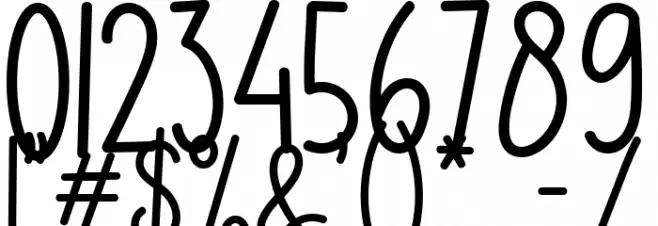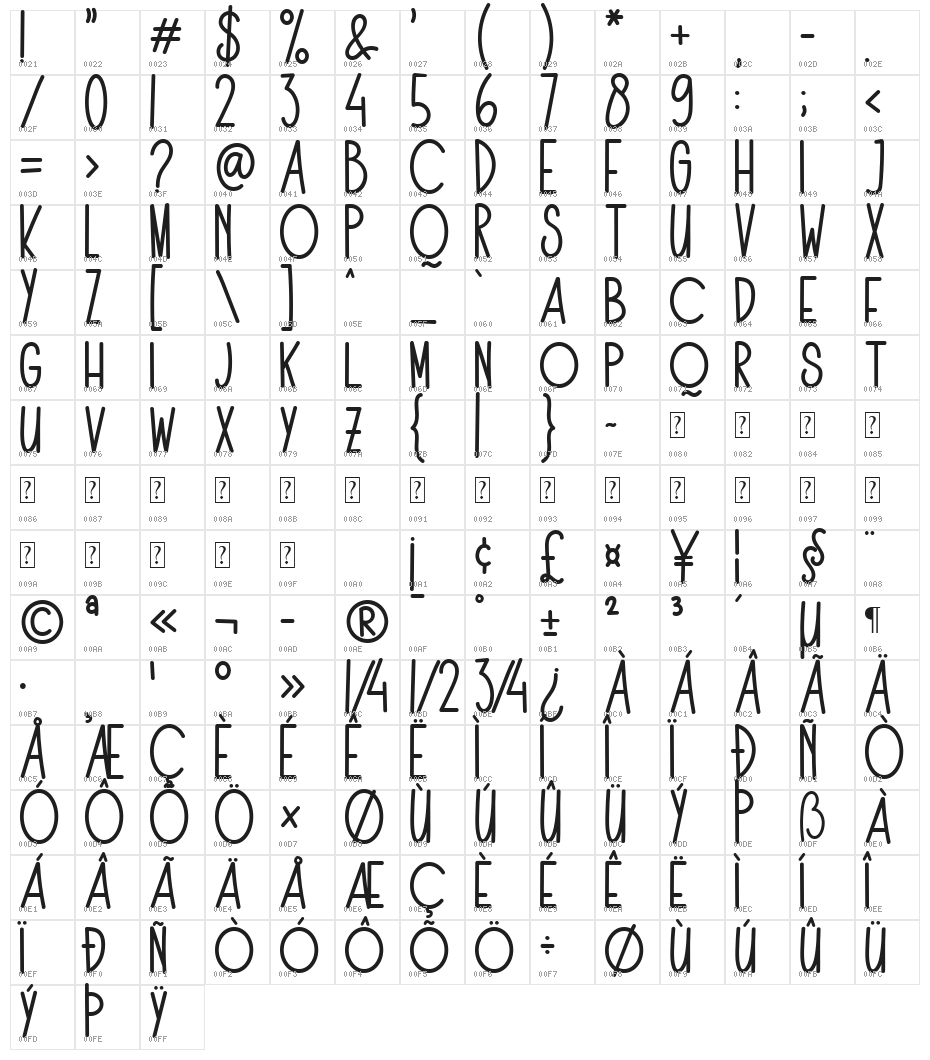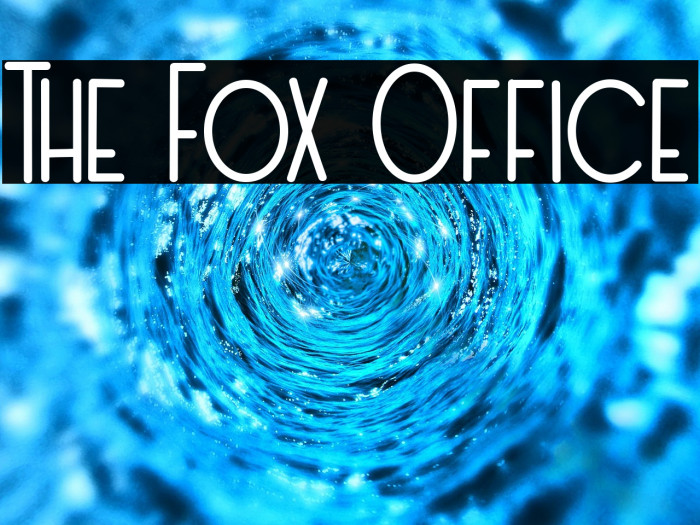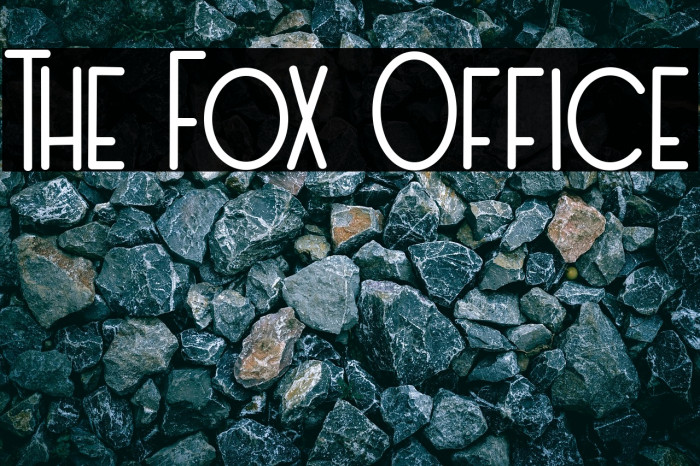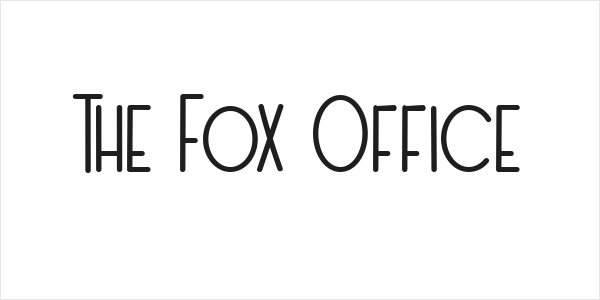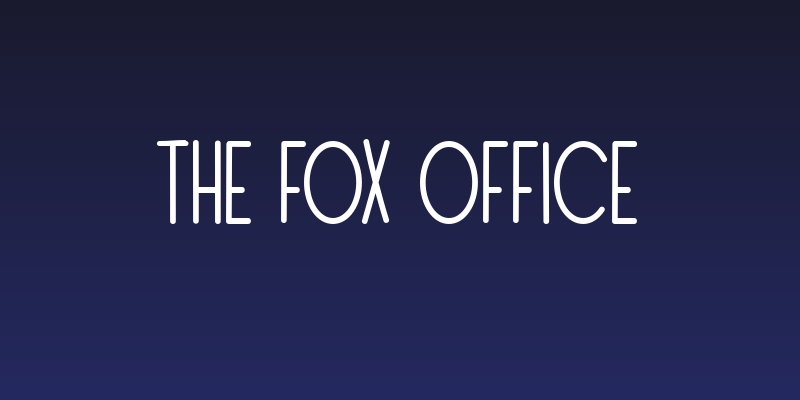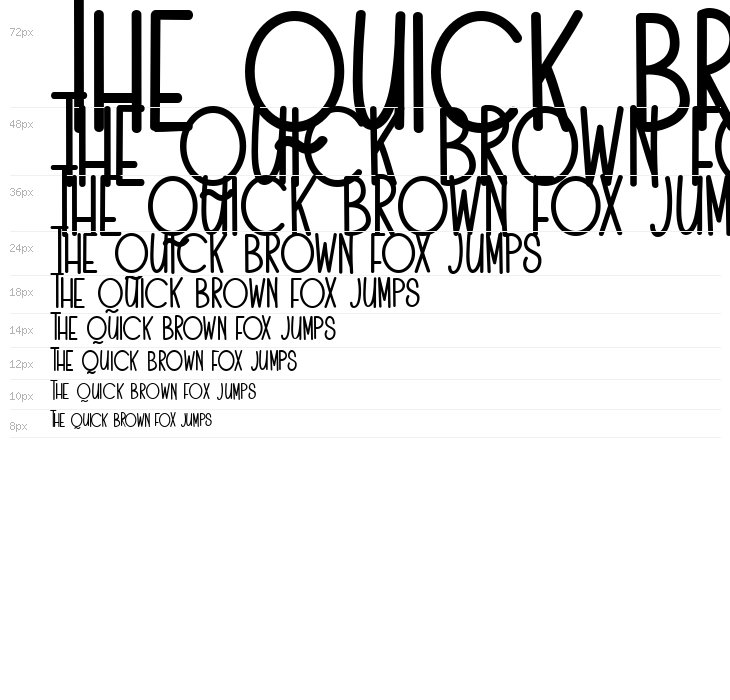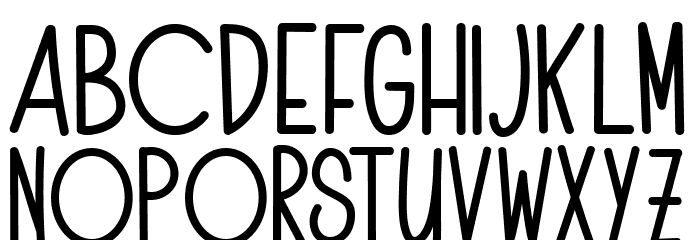
The Fox Office Font
The Fox Office Description
This font features a playful and whimsical style with tall, narrow letters that have a hand-drawn appearance. The characters are slightly irregular, adding to the casual and informal feel. The uppercase and lowercase letters maintain a consistent height, contributing to a cohesive look. The numbers and special characters are designed with the same playful aesthetic, making them suitable for creative projects. The strokes are uniform in thickness, providing a clean and modern look. This font is ideal for projects that require a fun and approachable vibe.